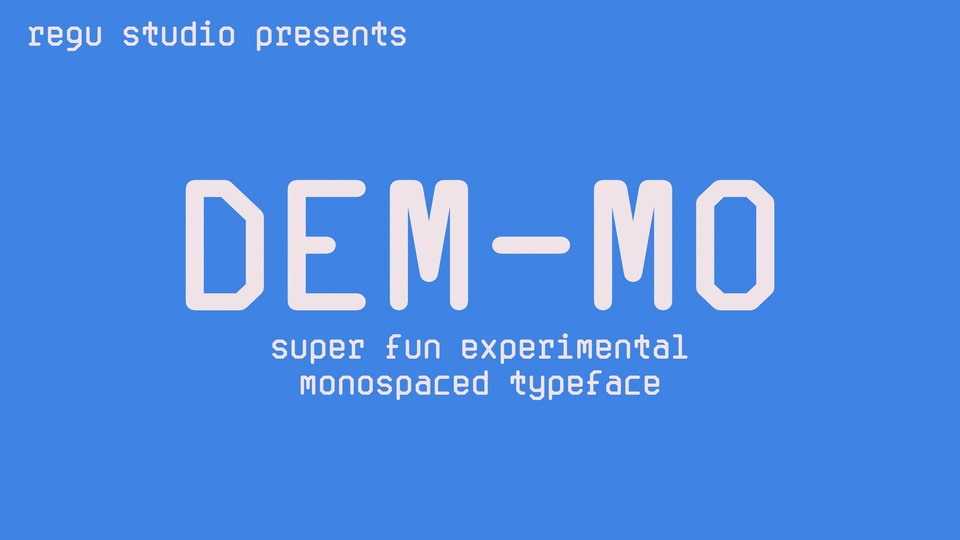
Download DEM-MO font, a mono super fun experimental typeface inspired by the intersection of retro gaming culture and tabletop RPGs.
Designer: Regu Studio